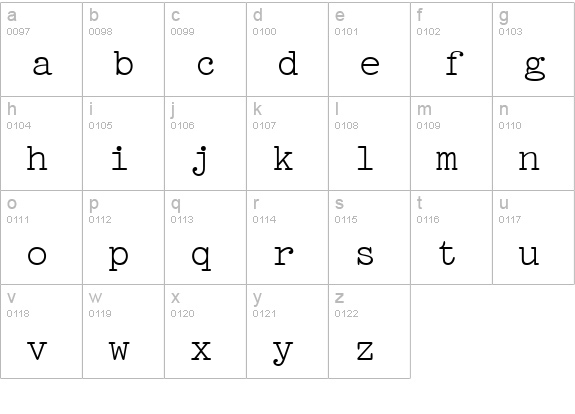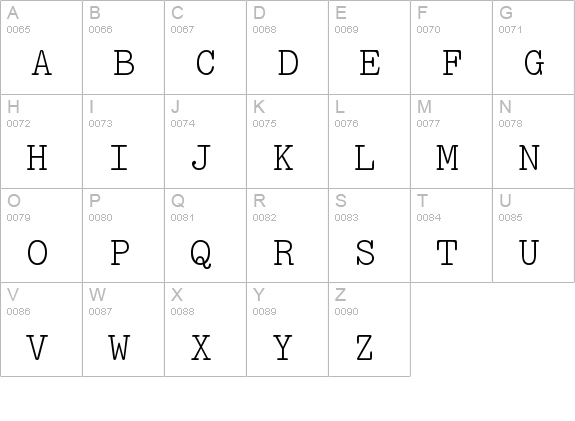
Introducing Pica font, a timeless and versatile typeface that effortlessly blends elegance with clarity. With its clean lines and classic proportions, Pica font adds a touch of sophistication to any design project. Whether you're creating a logo, designing a website, or crafting a print layout, this font will elevate your work to a whole new level. Pica font's versatility lies in its ability to adapt to various design styles and contexts. Its balanced letterforms and generous spacing make it highly legible even at smaller sizes, ensuring that your message comes across clearly and beautifully. The subtle curves and refined details of each character add a touch of finesse, making Pica font a true delight for both designers and readers alike. And the best part? Pica font is available for free! You can easily download this exceptional font at FontsMarket.com, a reputable source for high-quality fonts. Whether you're a professional designer or a passionate hobbyist, having access to such a remarkable typeface without any cost is a true blessing. So why wait? Elevate your design projects and bring your creative visions to life with the timeless beauty of Pica font. Download it for free at FontsMarket.com and let your imagination soar.